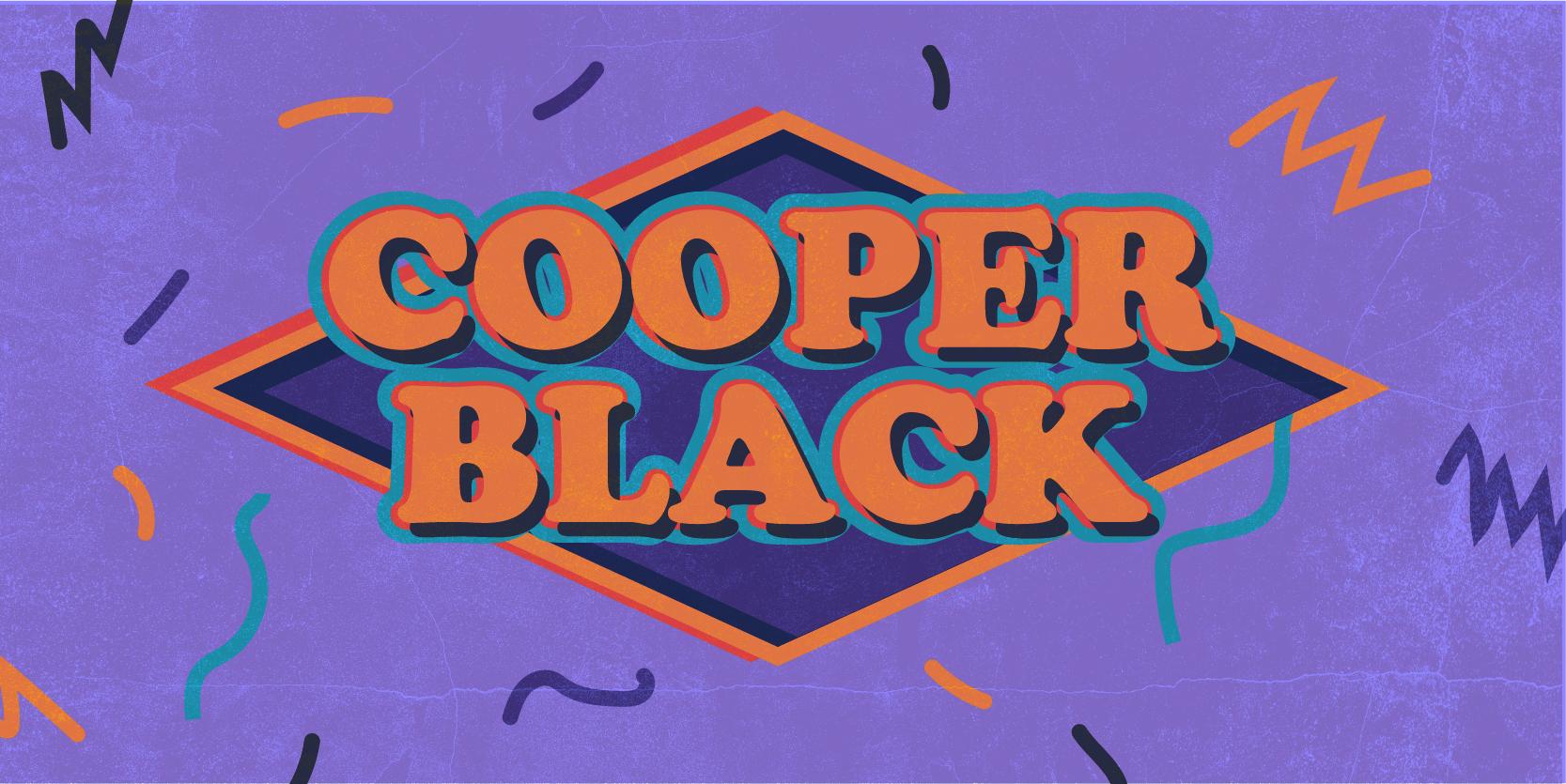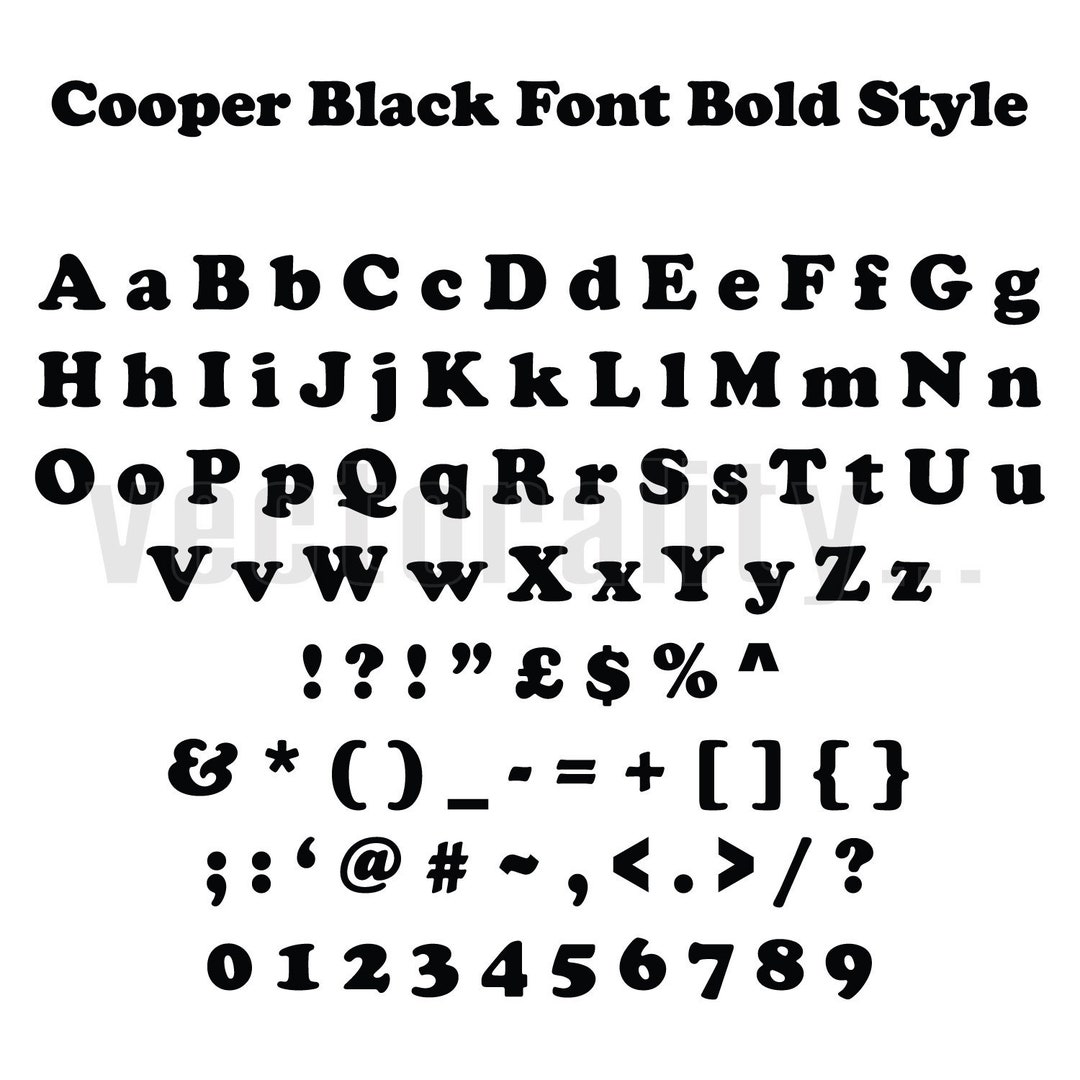
Cooper Black Fonts
Cooper Black Fonts - Explore p22 pooper black designed by michael clark at adobe fonts. {{retired.name}} fonts are being removed from adobe fonts on {{retired.retirement_date}}; It was made to be lanston monotype’s answer to the then relatively new “cooper black.” the similarity is obvious, but goudy heavyface has a distinct goudy touch and an informal feel, making it unique and a. A script typeface with 1 style, available from adobe fonts for sync and web use. It’s spaced really tightly, and the bumps have been sanded all the way down. Soap is a captivating unicase headliner which looks like cooper black but even smoother. Adobe fonts is the easiest way to bring great. A serif typeface with 2 styles, available from adobe fonts for sync and web use. Adobe fonts is the easiest way to bring great type. Explore cooper black designed by oswald bruce cooper at adobe fonts.
Adobe fonts is the easiest way to bring great. Soap is a captivating unicase headliner which looks like cooper black but even smoother. A script typeface with 1 style, available from adobe fonts for sync and web use. It’s spaced really tightly, and the bumps have been sanded all the way down. A serif typeface with 2 styles, available from adobe fonts for sync and web use. Explore cooper black designed by oswald bruce cooper at adobe fonts. It was made to be lanston monotype’s answer to the then relatively new “cooper black.” the similarity is obvious, but goudy heavyface has a distinct goudy touch and an informal feel, making it unique and a. Adobe fonts is the easiest way to bring great type. Explore p22 pooper black designed by michael clark at adobe fonts. {{retired.name}} fonts are being removed from adobe fonts on {{retired.retirement_date}};
{{retired.name}} fonts are being removed from adobe fonts on {{retired.retirement_date}}; Explore cooper black designed by oswald bruce cooper at adobe fonts. It was made to be lanston monotype’s answer to the then relatively new “cooper black.” the similarity is obvious, but goudy heavyface has a distinct goudy touch and an informal feel, making it unique and a. Soap is a captivating unicase headliner which looks like cooper black but even smoother. A serif typeface with 2 styles, available from adobe fonts for sync and web use. Adobe fonts is the easiest way to bring great. Explore p22 pooper black designed by michael clark at adobe fonts. A script typeface with 1 style, available from adobe fonts for sync and web use. Adobe fonts is the easiest way to bring great type. It’s spaced really tightly, and the bumps have been sanded all the way down.
Explore p22 pooper black designed by michael clark at adobe fonts. {{retired.name}} fonts are being removed from adobe fonts on {{retired.retirement_date}}; Explore cooper black designed by oswald bruce cooper at adobe fonts. Adobe fonts is the easiest way to bring great type. Soap is a captivating unicase headliner which looks like cooper black but even smoother.
Adobe fonts is the easiest way to bring great. It was made to be lanston monotype’s answer to the then relatively new “cooper black.” the similarity is obvious, but goudy heavyface has a distinct goudy touch and an informal feel, making it unique and a. Explore p22 pooper black designed by michael clark at adobe fonts. A script typeface with.
Explore p22 pooper black designed by michael clark at adobe fonts. A script typeface with 1 style, available from adobe fonts for sync and web use. It’s spaced really tightly, and the bumps have been sanded all the way down. Adobe fonts is the easiest way to bring great. A serif typeface with 2 styles, available from adobe fonts for.
Adobe fonts is the easiest way to bring great. A script typeface with 1 style, available from adobe fonts for sync and web use. Adobe fonts is the easiest way to bring great type. Explore cooper black designed by oswald bruce cooper at adobe fonts. {{retired.name}} fonts are being removed from adobe fonts on {{retired.retirement_date}};
Explore p22 pooper black designed by michael clark at adobe fonts. A script typeface with 1 style, available from adobe fonts for sync and web use. A serif typeface with 2 styles, available from adobe fonts for sync and web use. It’s spaced really tightly, and the bumps have been sanded all the way down. Explore cooper black designed by.
{{retired.name}} fonts are being removed from adobe fonts on {{retired.retirement_date}}; Soap is a captivating unicase headliner which looks like cooper black but even smoother. It’s spaced really tightly, and the bumps have been sanded all the way down. Adobe fonts is the easiest way to bring great. Adobe fonts is the easiest way to bring great type.